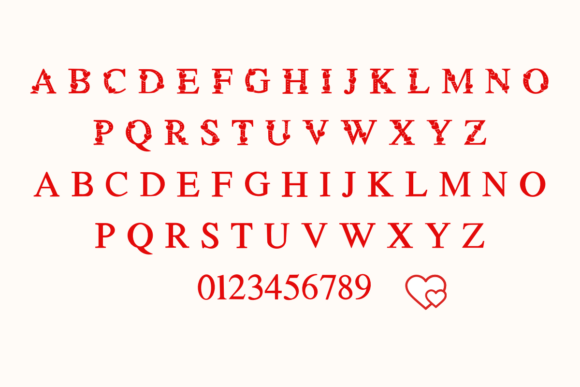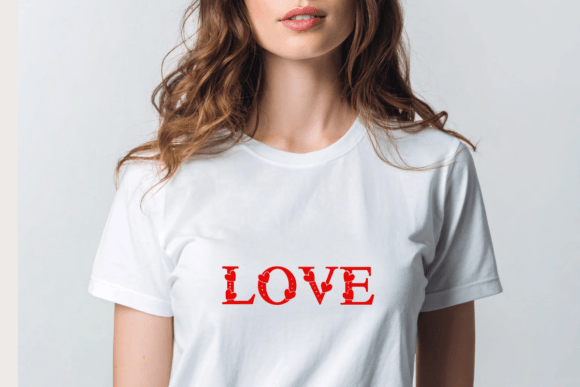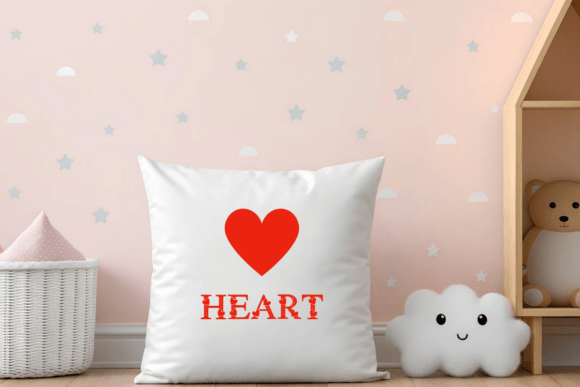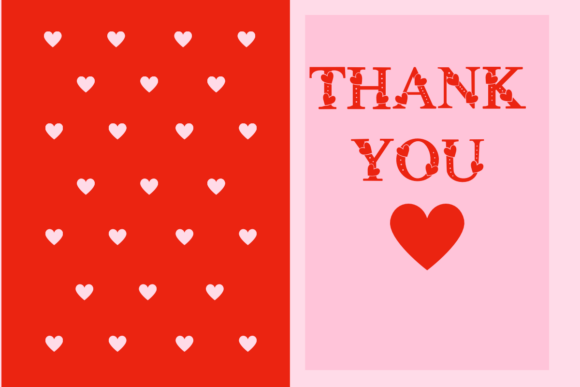
Heart Love Font: Add a Touch of Romance to Your Designs
Are you looking for a font that can add a dash of romance and whimsy to your designs? Look no further than the Heart Love font, a captivating decorative display font that is sure to infuse your creations with pure affection. This beautiful typeface is perfect for designers and crafters who want to add a touch of love and warmth to their work.
A Romantic Twist on Classic Serif Structures
The Heart Love font is a unique and creative take on classic serif structures. Its sturdy, high-contrast stems are adorned with playful, integrated heart shapes and delicate polka-dot accents, giving it a romantic and feminine touch. The font’s bold weight and intricate decorative elements make it a visual centerpiece that radiates joy and warmth.
Perfect for Seasonal Campaigns and Love-Themed Designs
The Heart Love font is a premier choice for seasonal campaigns, making it the quintessential font for Valentine’s Day posters, romantic branding, and love-themed event signage. Its decorative flourishes and playful heart shapes make it perfect for designs that require a touch of romance and whimsy.
Ideal for Nursery Wall Art and Children’s Apparel Branding
The Heart Love typeface is also engineered to be a focal point for nursery wall art or children’s apparel branding. Its bold weight and intricate decorative elements make it a beautiful standalone title that is sure to capture the attention of your audience.
Pairing Suggestions for Maximum Impact
To enhance the Heart Love font, pair it with a clean, simple sans-serif for secondary information. This will ensure that the decorative flourishes remain the star of the show and don’t get lost in the design. The contrast between the bold, decorative font and the clean sans-serif will add visual interest and create a beautiful balance in your design.
Design Ideas for Heart Love Font
The Heart Love font is versatile and can be used in a variety of design projects, including:
- Valentine’s Day posters and cards
- Romantic branding and packaging
- Love-themed event signage and invitations
- Nursery wall art and children’s apparel branding
- Heartfelt greeting cards and stationery
- Logos for boutique candle and gift shops
Why Choose the Heart Love Font?
The Heart Love font is a unique and beautiful typeface that offers a range of benefits, including:
- A romantic and whimsical touch that adds warmth and personality to your designs
- A bold weight and intricate decorative elements that make it a visual centerpiece
- Versatility and flexibility, making it suitable for a range of design projects
- Easy pairing with clean, simple sans-serifs for maximum impact
The Heart Love font is a captivating decorative display font that is sure to infuse your designs with pure affection. Its unique blend of classic serif structures and romantic flourishes makes it perfect for designers and crafters who want to add a touch of love and warmth to their work. With its bold weight, intricate decorative elements, and versatility, the Heart Love font is a premier choice for seasonal campaigns, love-themed designs, and nursery wall art.
Get Creative with Heart Love Font